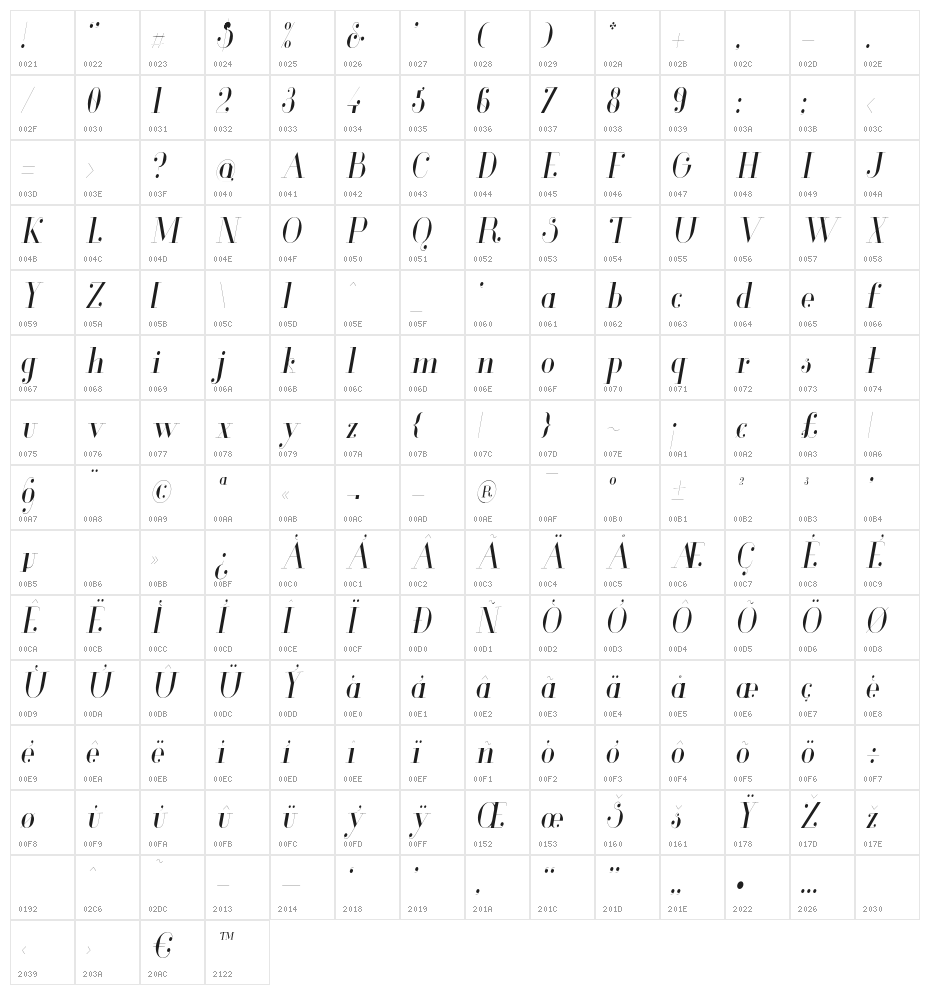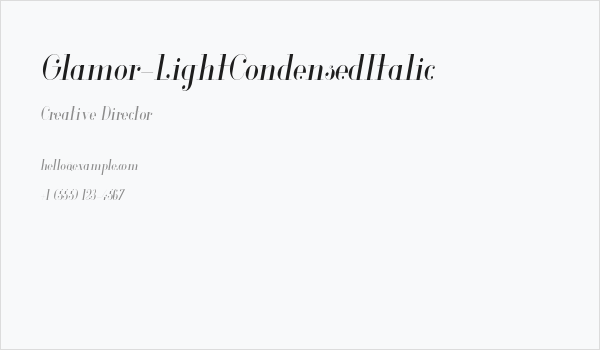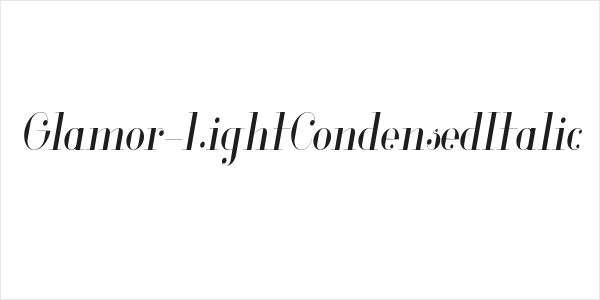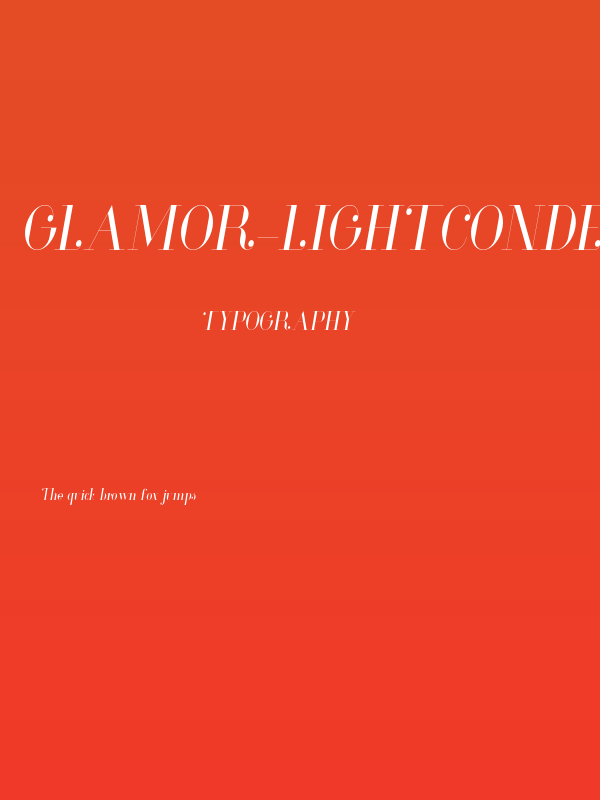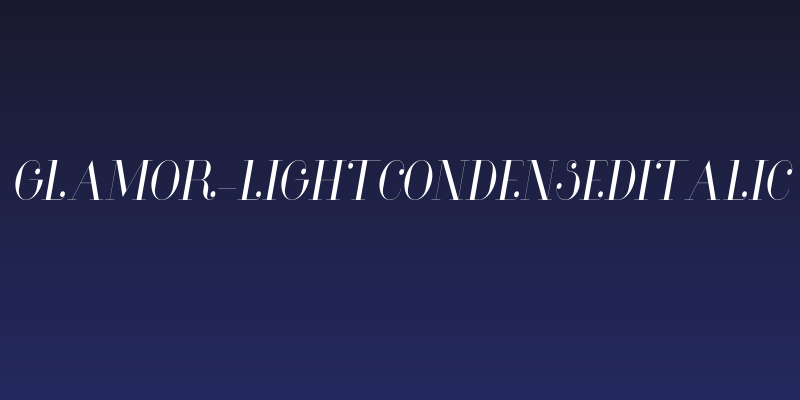
Glamor-LightCondensedItalic Font
Glamor-LightCondensedItalic Description
This elegant and sophisticated typeface features a light and condensed structure with a distinct italic slant. The characters exhibit high contrast between thick and thin strokes, adding a touch of drama and refinement. The uppercase letters are tall and slender, while the lowercase letters maintain a graceful flow. The numerals and special characters are designed with the same attention to detail, ensuring consistency throughout. This font's stylish appearance makes it ideal for projects that require a touch of luxury and class.
| Overall Style | Elegant and sophisticated |
| Proposed Projects | Ideal for luxury branding, fashion magazines, wedding invitations, and high-end product packaging. |